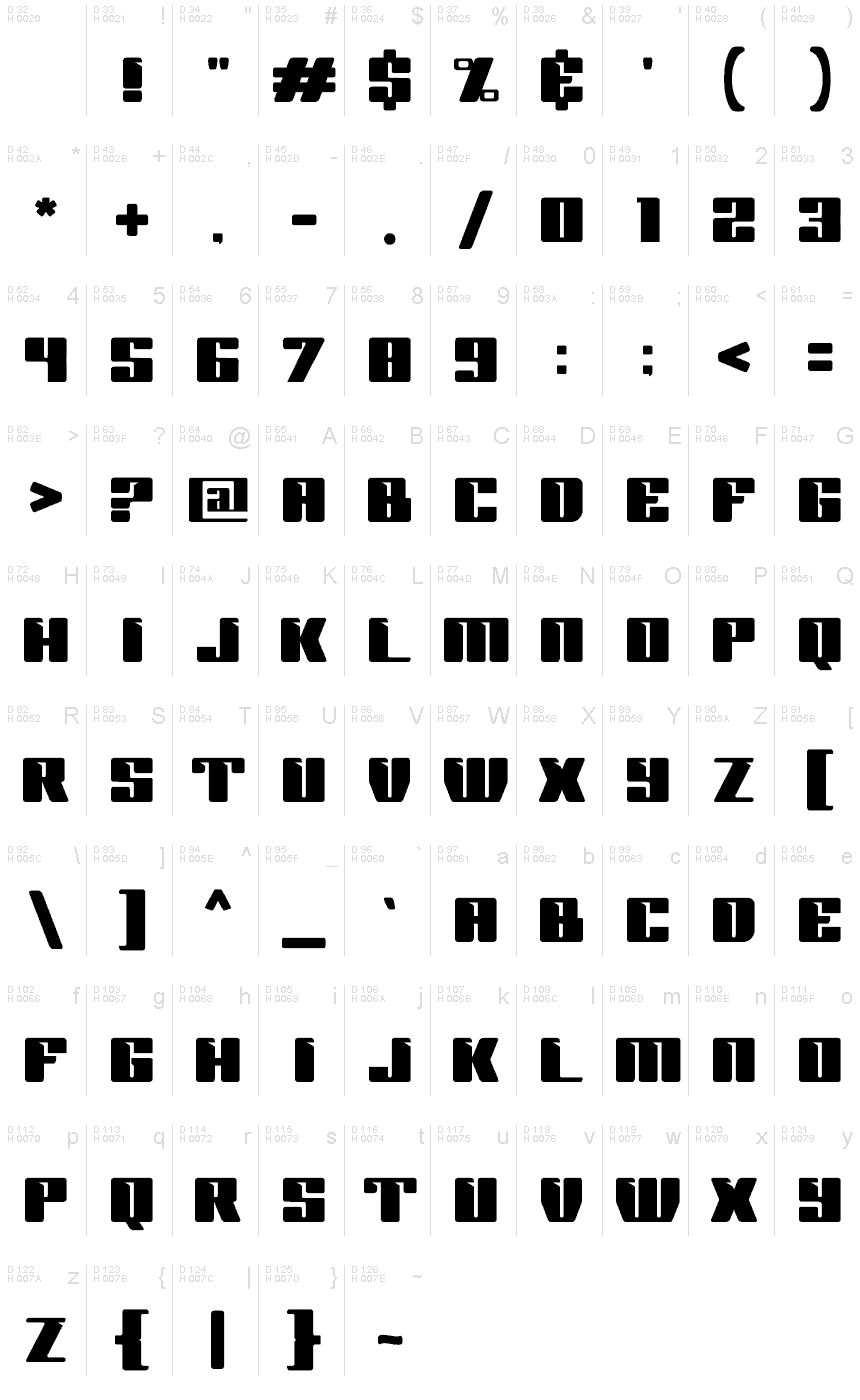
MORSPEED
Morspeed font by MaknaStudio is a futuristic display font with a bold weight. Characterized by its industrial, geometric elements and robust, retro-inspired design, it brings a sense of tech-driven style. Its dramatic nature allows the balanced characters to deliver an extraordinary visual impact.
Free for developing projects, Morspeed font shines when used in branding designs, packaging layouts, poster designs, magazine covers and ads. Create dazzling movie titles or logotypes and highlight important sections within websites or apps where additional attention is needed!